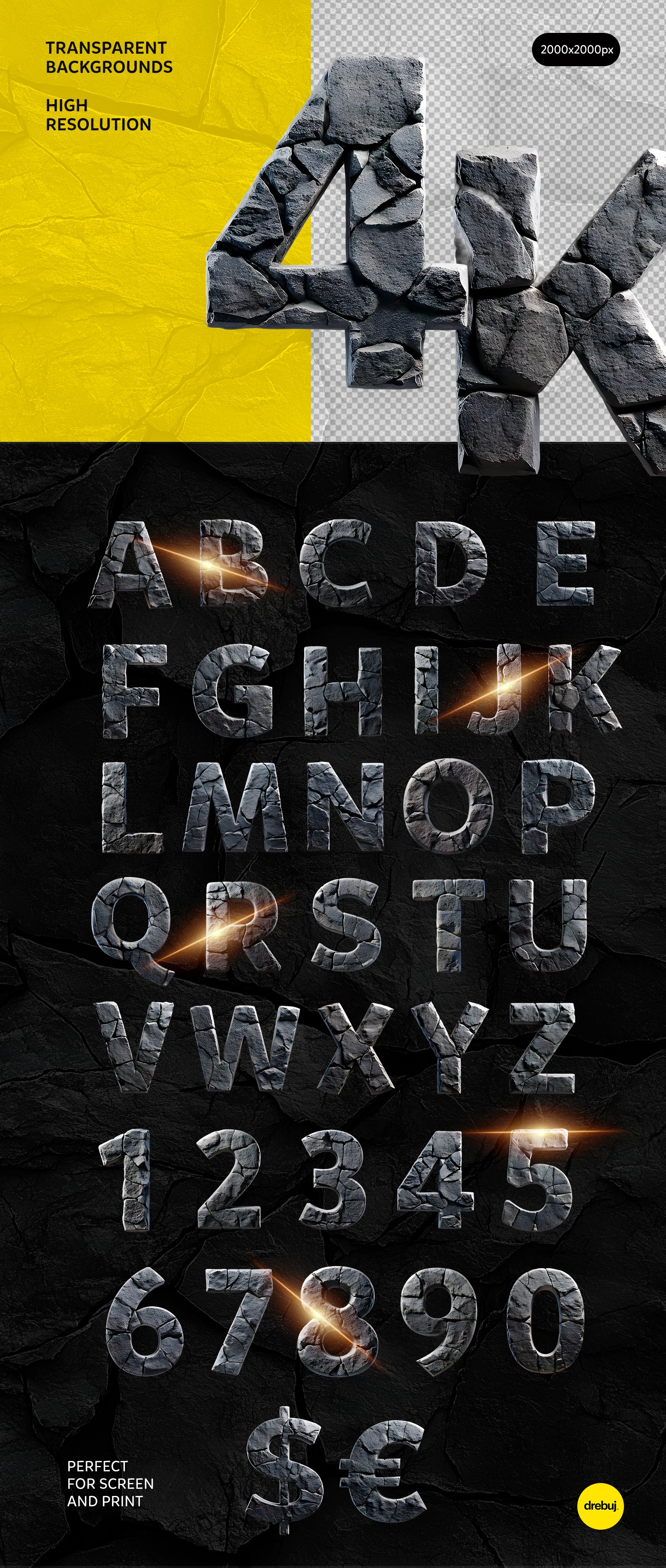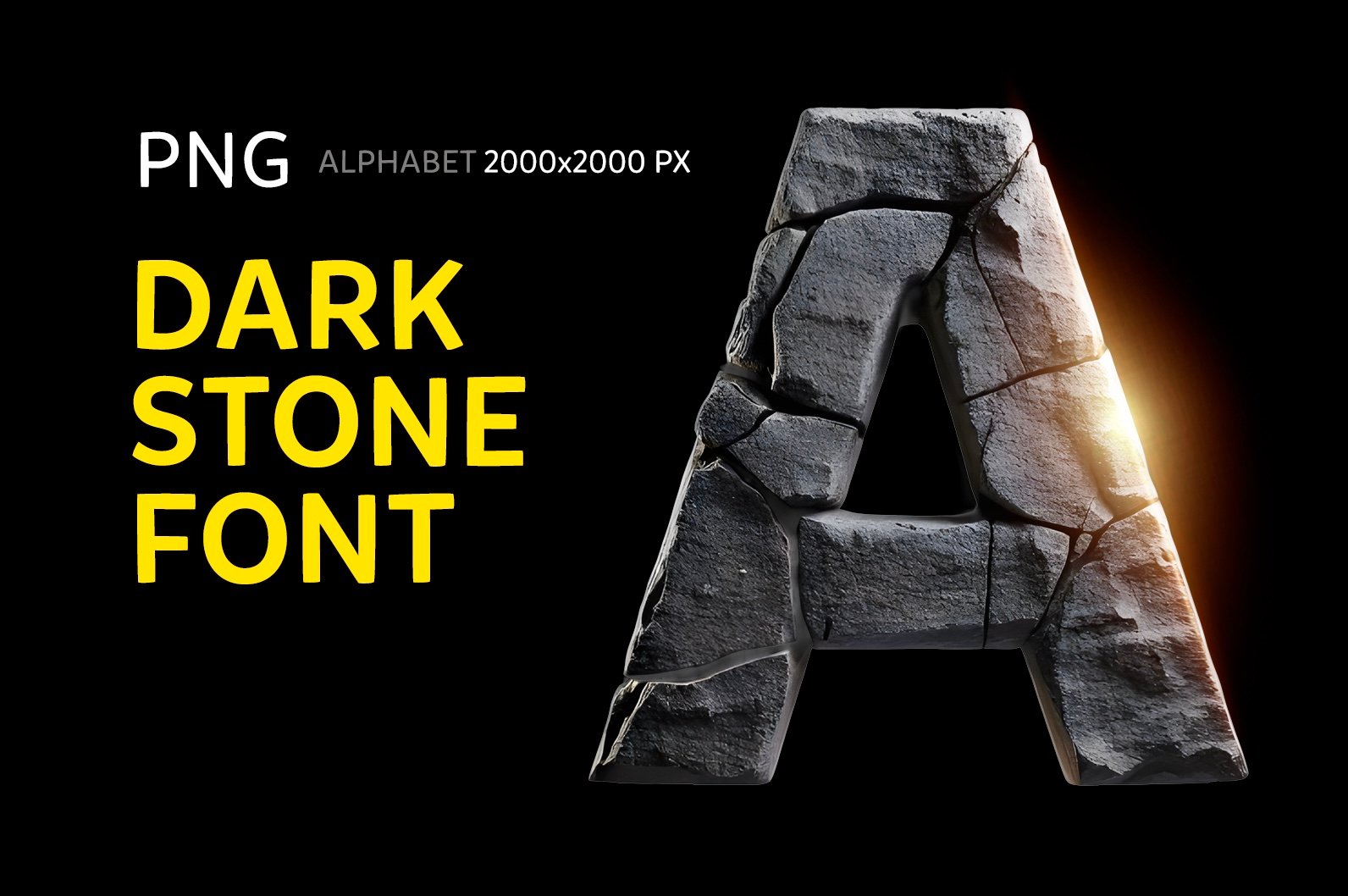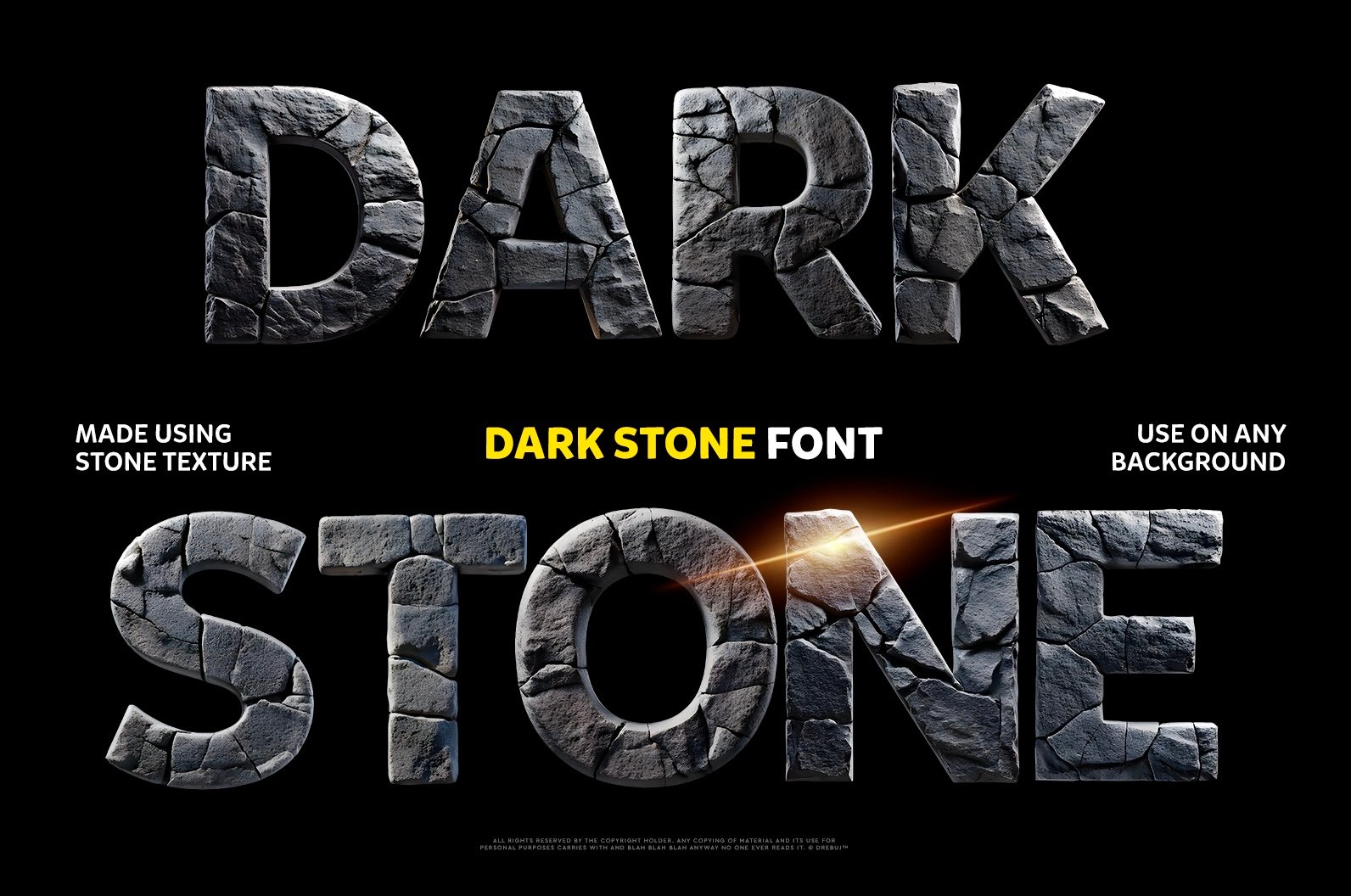
Dark Stone Font: Geometric 3D Alphabet PNG
An entire alphabet of DARK STONE letters with transparent background.
THIS IS NOT A FONT. This is a very high-quality 3d PNG font of DARK STONE letters.